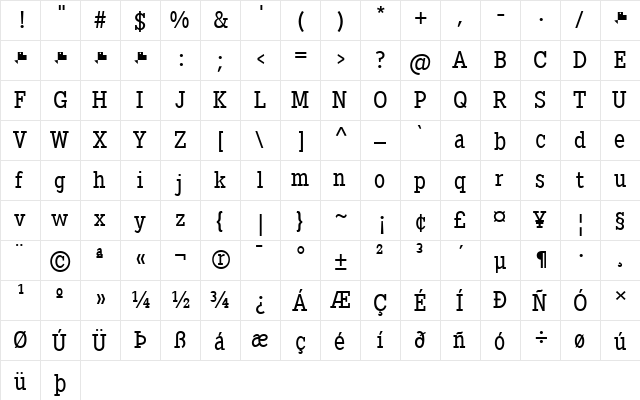
Pentay Book
| Foundry | deFharo |
| Designer | Fernando Haro |
Design Context for Pentay Typeface
Pentay is a composed and adaptable typeface that performs quietly and consistently across a wide range of design contexts.